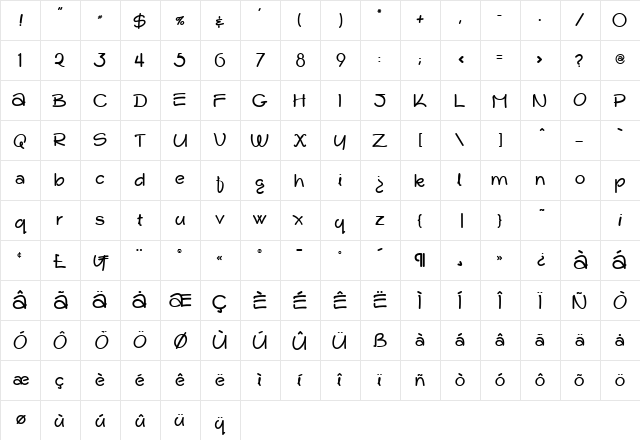
Dallas Plain Font Preview
Dallas Plain
Design Context for Dallas Typeface
Dallas is a composed and adaptable typeface that performs quietly and consistently across a wide range of design contexts.